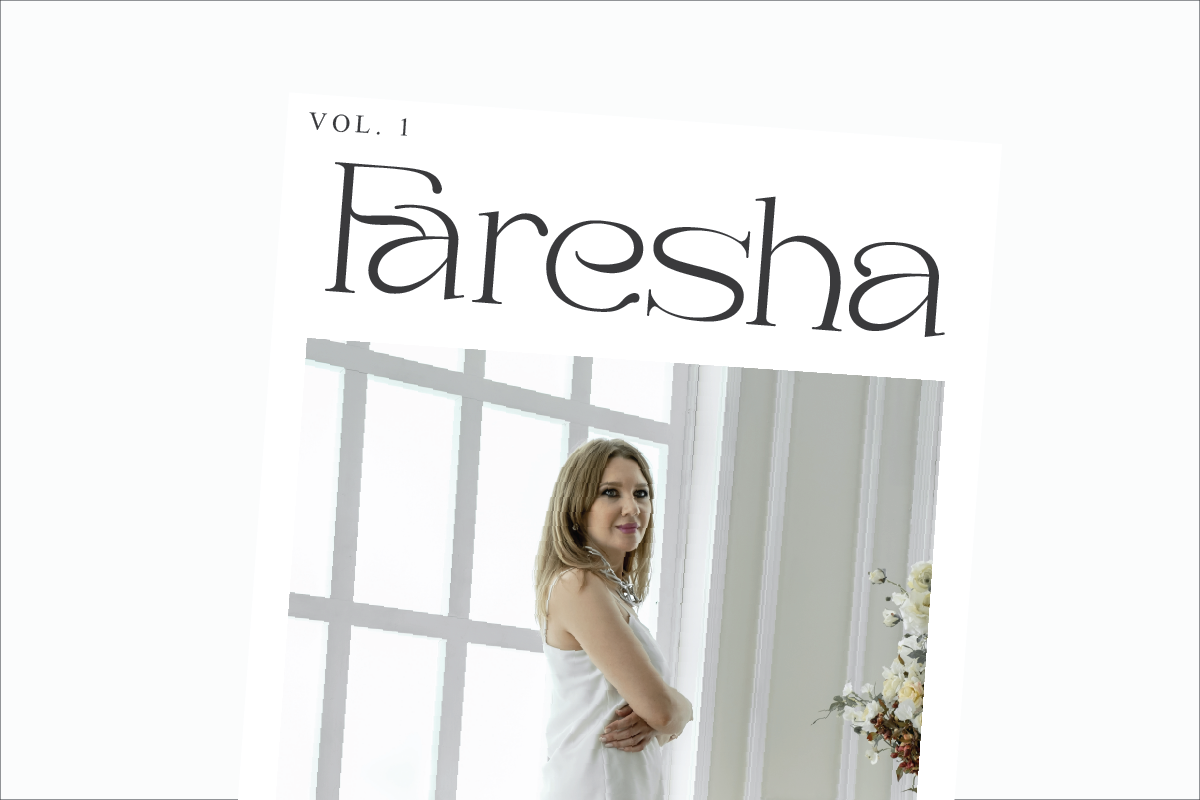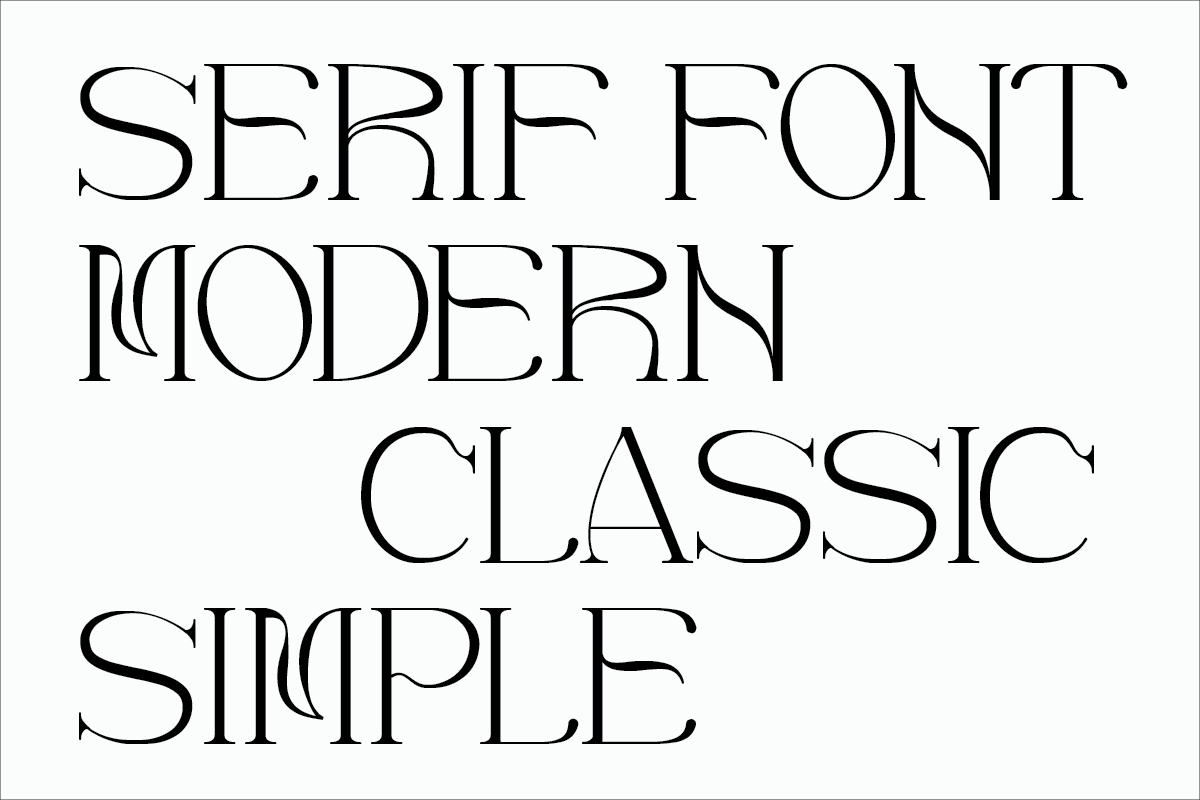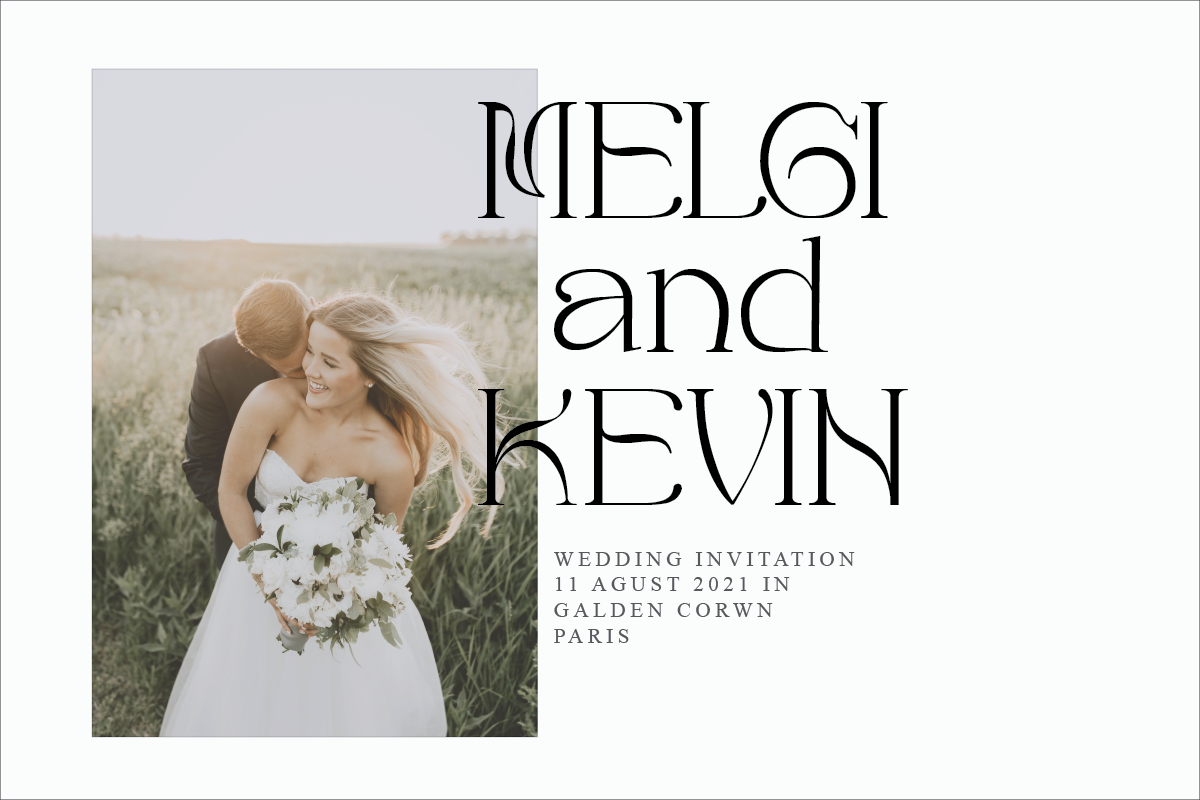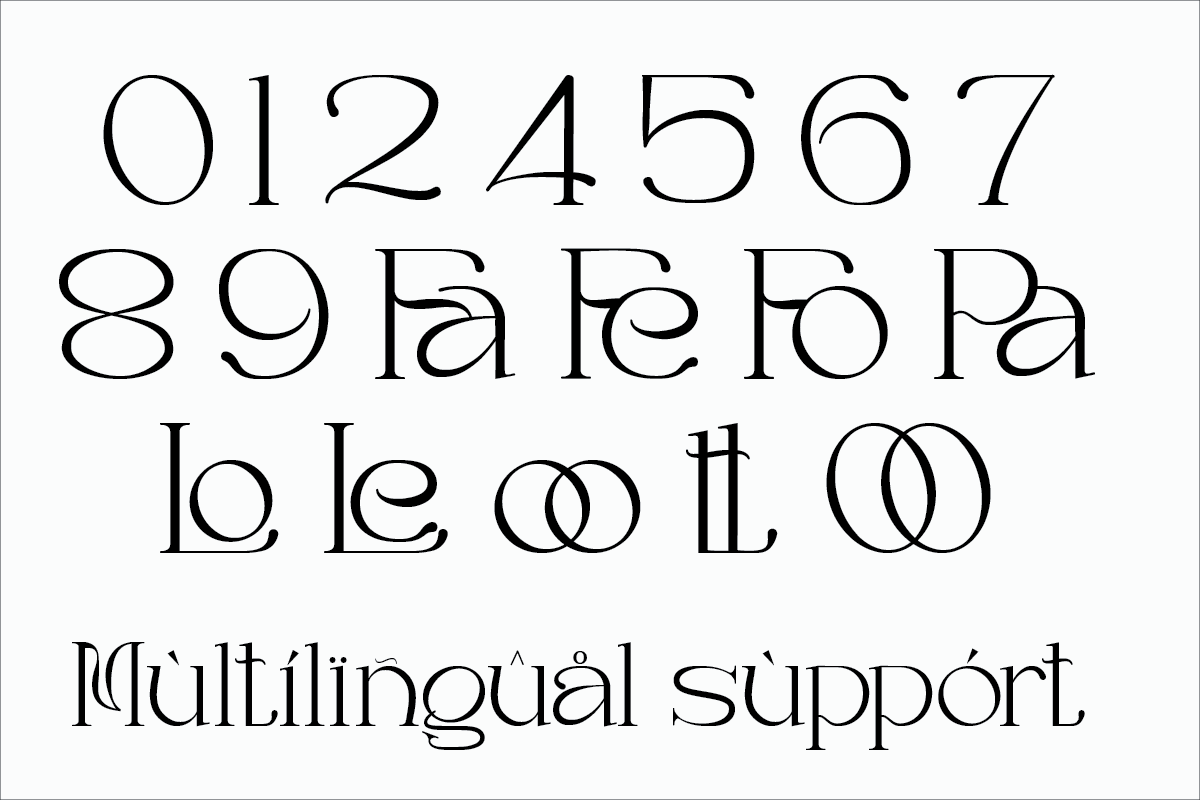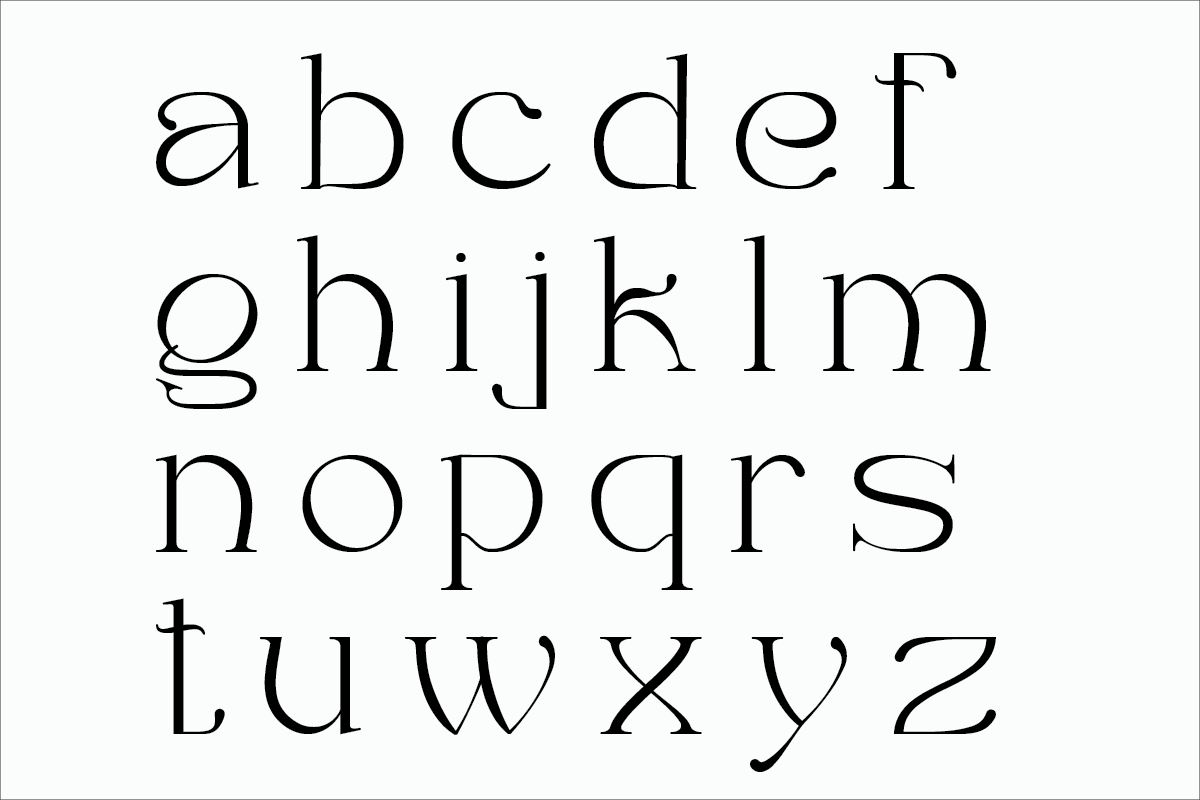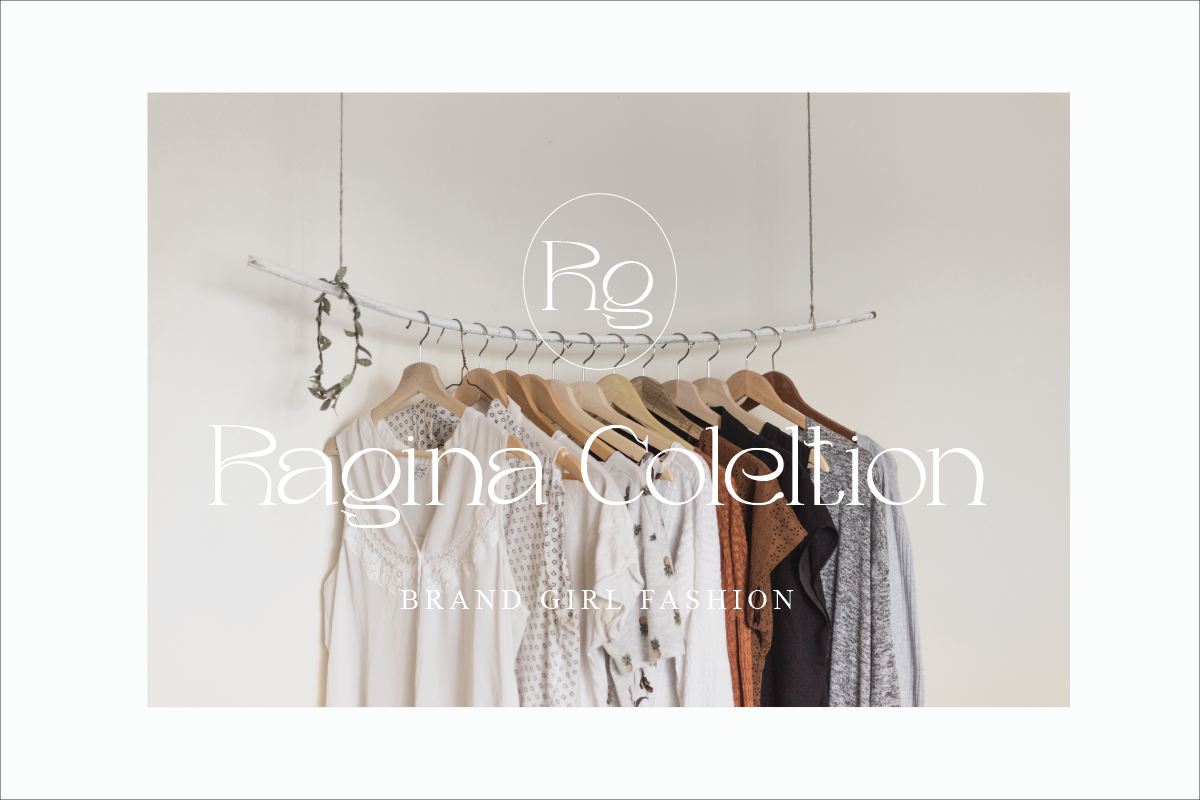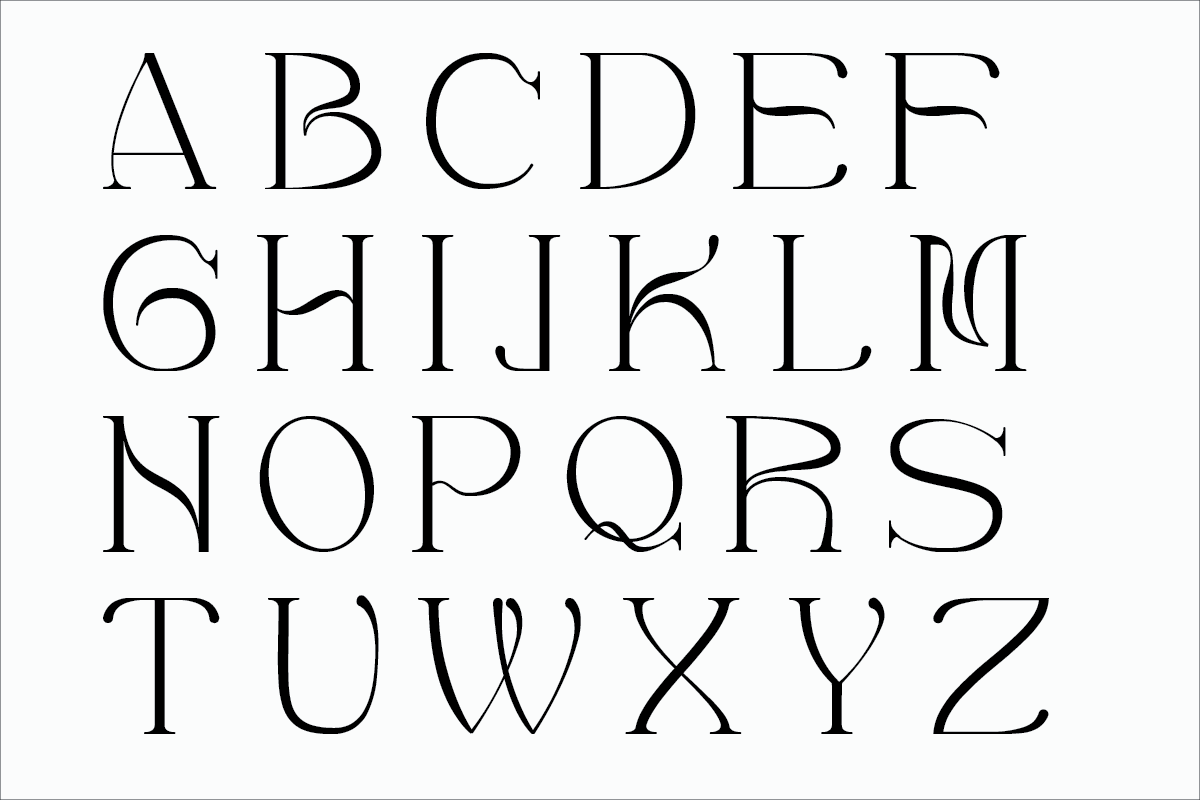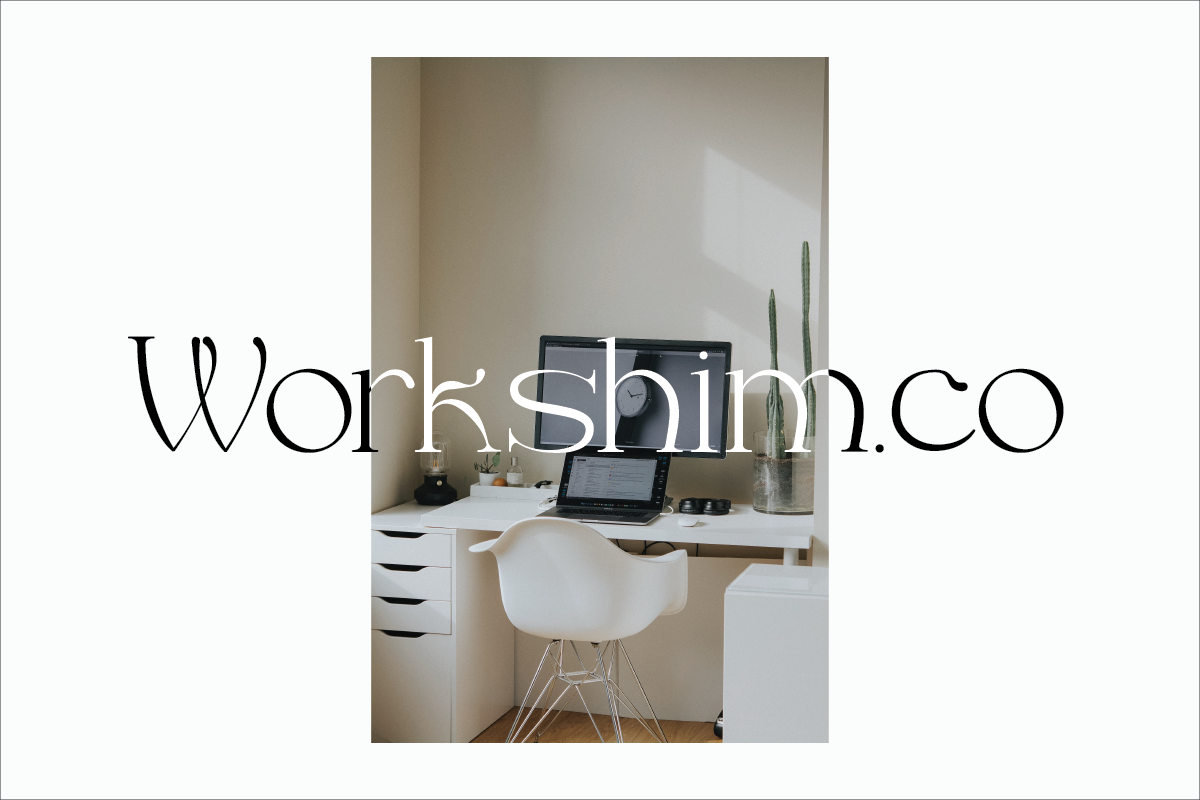
Bashan
Bashan is modern serif font with beautiful contrast. Specially designed for fashion-themed projects, perfectly suitable for creating elegant, chic, lifestyle design such as logos, title, and magazine, and more.